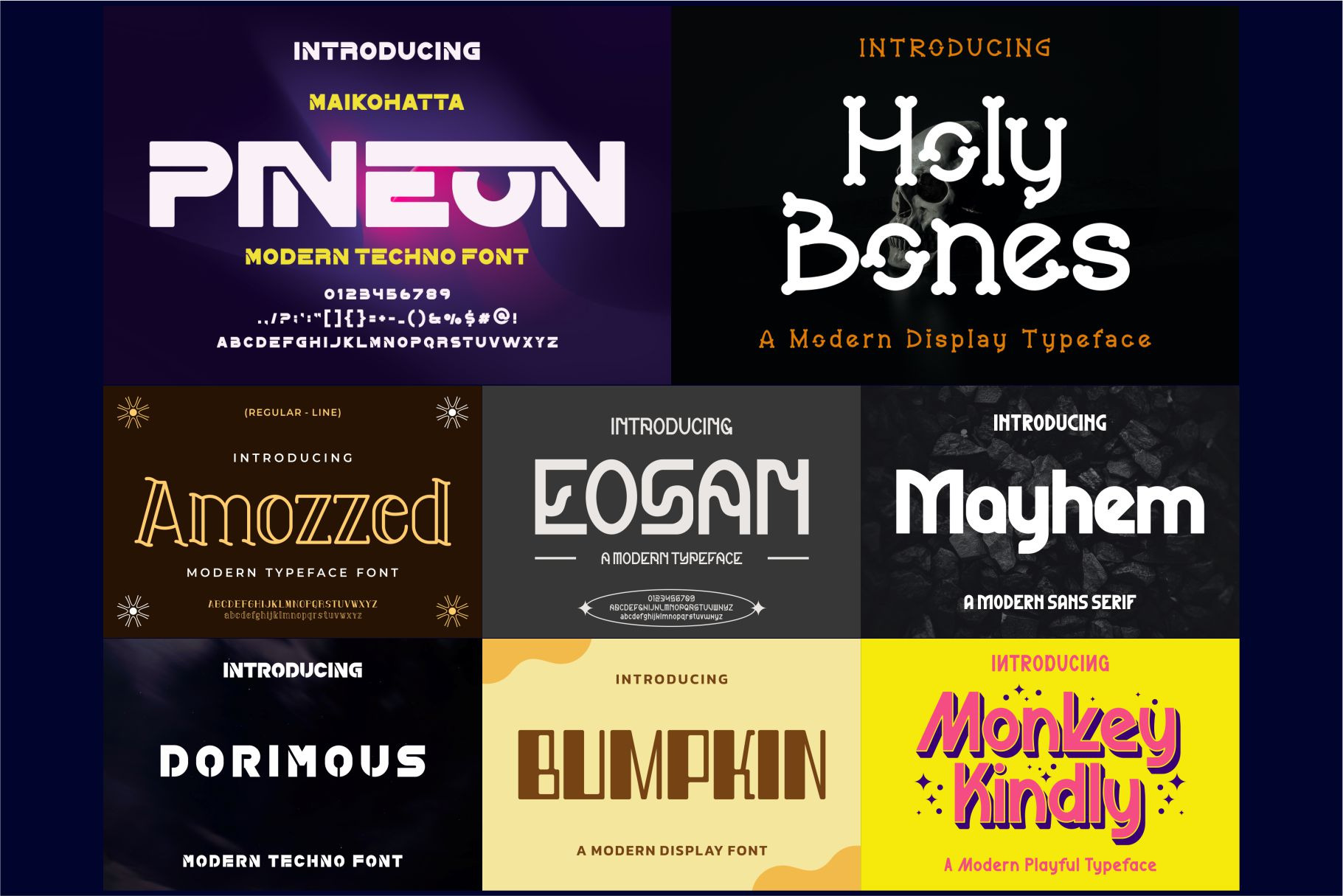
Bundle Font Modern Display
Introducing our new product Bundle Font Modern Display - Modern Font
The font is suitable for any branding project like logo, t-shirt printing, esport, and many more. outstanding in a wide range of contexts.